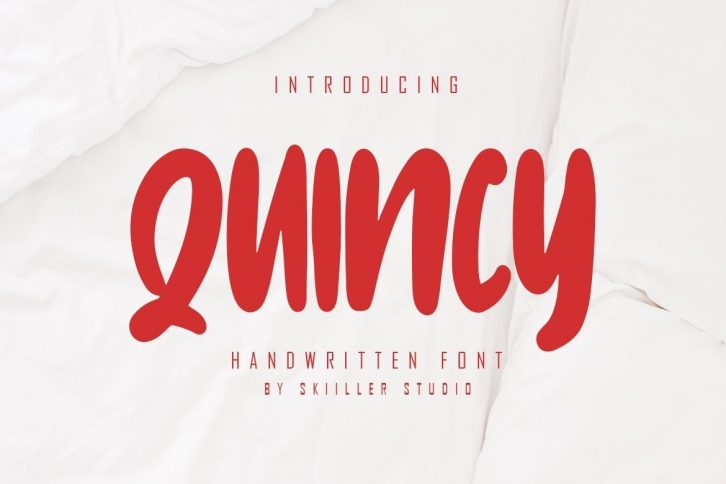
Quincy is a beautiful and bold handwritten font suitable for business or commercial use to support your promotions such as designs, banners, flyers, clothes, and much more.